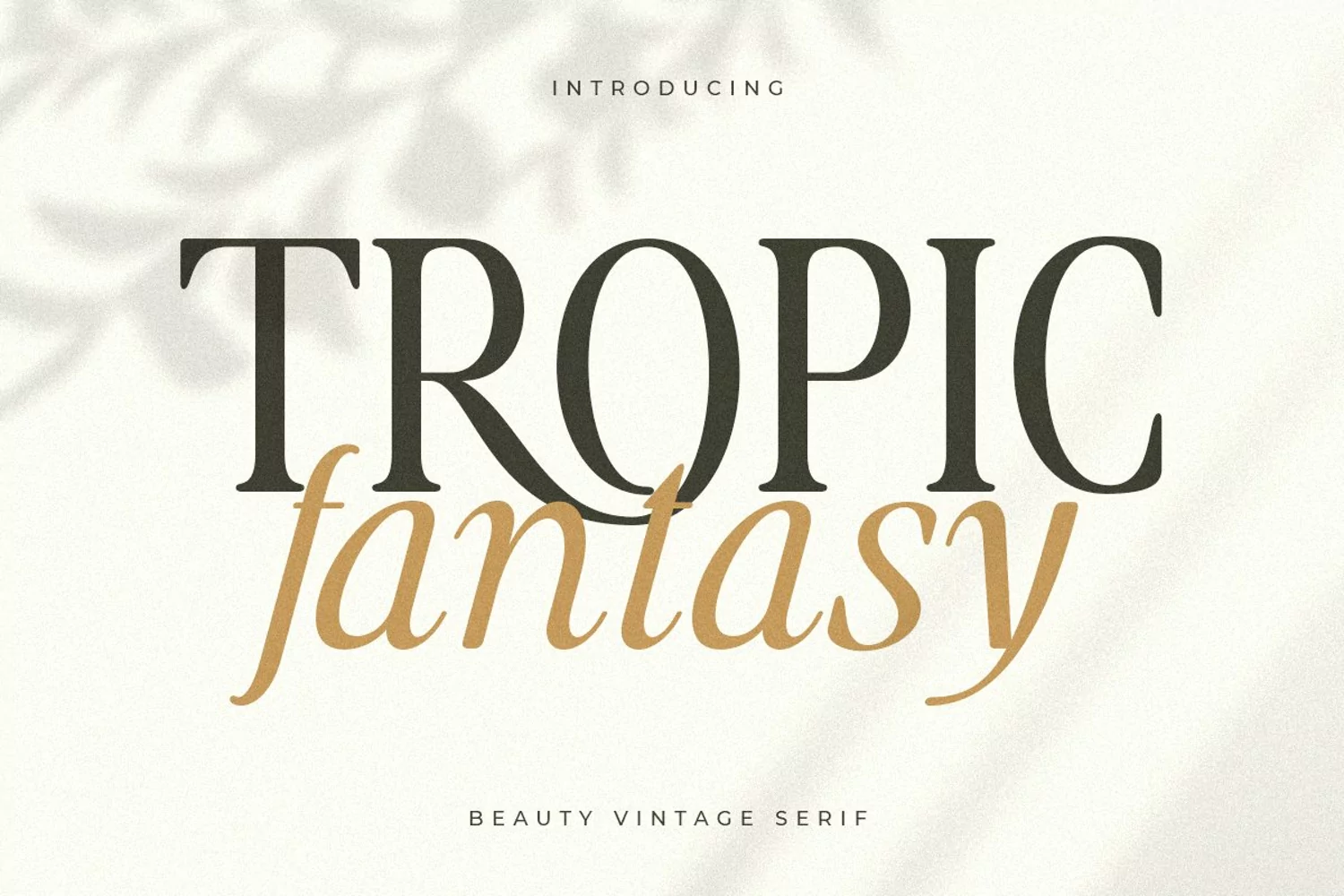
A Beauty Vintage Serif font that special for show the display or headline with love and fancy style will be ready to add value of your brand. It so nice to leverage designer or product owner that need solutions to make their design look more stylish and modern. And specially for Malfin font, We prepared any characters to help you create unlimited variations for your creative needs.